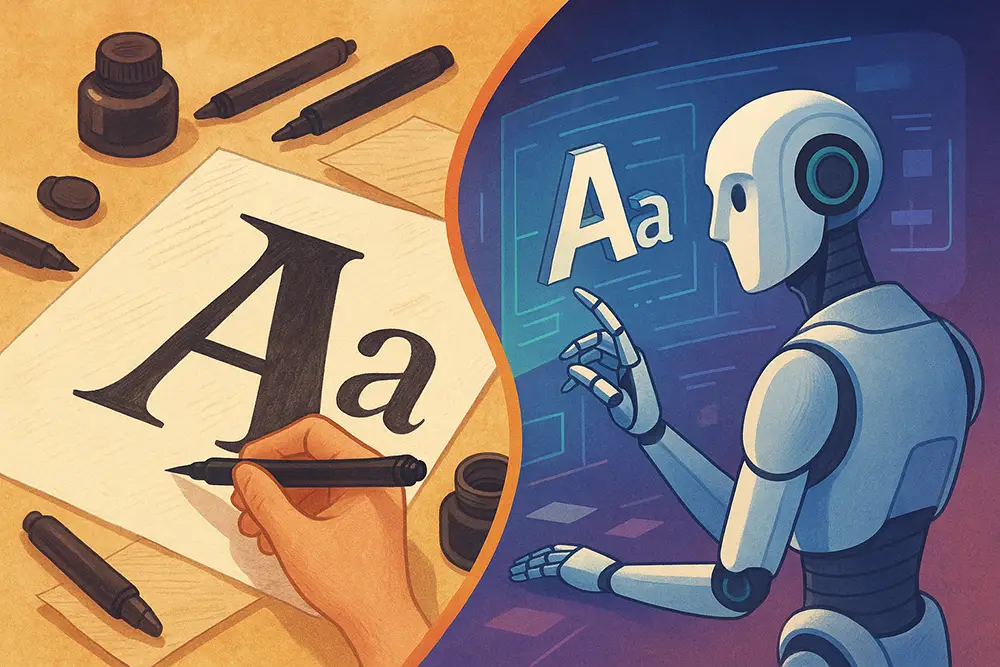
Font design, once ruled by pen strokes and Bézier curves, now faces a powerful collaborator—and competitor: Artificial Intelligence. In 2025, we’re seeing a creative revolution where algorithms generate, optimize, and even judge typography.
But is this a creative blessing, or a shortcut that kills originality?
Let’s explore how AI is transforming the world of font design, what it means for creatives, and how you can stay ahead—without losing your human touch.
AI tools like Fontjoy, Glyphr Studio AI, and even OpenAI’s DALL·E are changing the typography landscape. They can generate font previews, suggest pairings, and even construct full typefaces from scratch—based on prompts, sketches, or scanned references.
These tools aren’t just helping big agencies. Solo designers, freelancers, and even hobbyists now use AI to:
According to Adobe Firefly, generative tools cut type design prototyping time by over 60%.
Want a techno futuristic font in seconds? Just prompt it. AI assists with variations, spacing suggestions, and glyph extensions—all while you stay in creative control.
Recommended Font:
🔥 Byte Sharp – A sleek techno font that fits perfectly in AI-driven interfaces or sci-fi branding.
AI tools can scan millions of design trends and recommend styles based on market relevance. Ideal for branding, advertising, and social media content that needs visual performance.
AI helps optimize contrast, readability, and even cultural sensitivity in letterforms—making fonts inclusive and globally adaptable.
While automation has benefits, we can’t ignore the risks. Many designers worry that overreliance on AI can lead to:
AI learns from what’s already out there. That means your designs might look… like everyone else’s.
Alternative Font Highlight:
🎯 Bombardies – A chaotic yet calculated brush font that breaks away from machine-like precision.
If an AI studies thousands of fonts to generate one—who owns the result? You? The AI? Or the original creators?
Legal experts are still debating this, and designers must tread carefully, especially in commercial use.
Kerning by feel. Balancing visual weight. Hand-drawing quirky alternates. These are skills AI can’t replicate—but designers might forget if they don’t keep practicing.
The smartest creatives are not avoiding AI—they’re using it as a creative partner, not a crutch.
Here’s how to futureproof your design process:
Let AI help with layout tests, visual brainstorming, and quick prototypes. Then, refine it manually to give it your voice.
AI fonts can look clean—but lack emotion. Fonts with backstories and unique characters will always feel more alive.
Featured Font:
💡 Hello Arsenio – Quirky and spontaneous, made for personal brands or playful editorial.
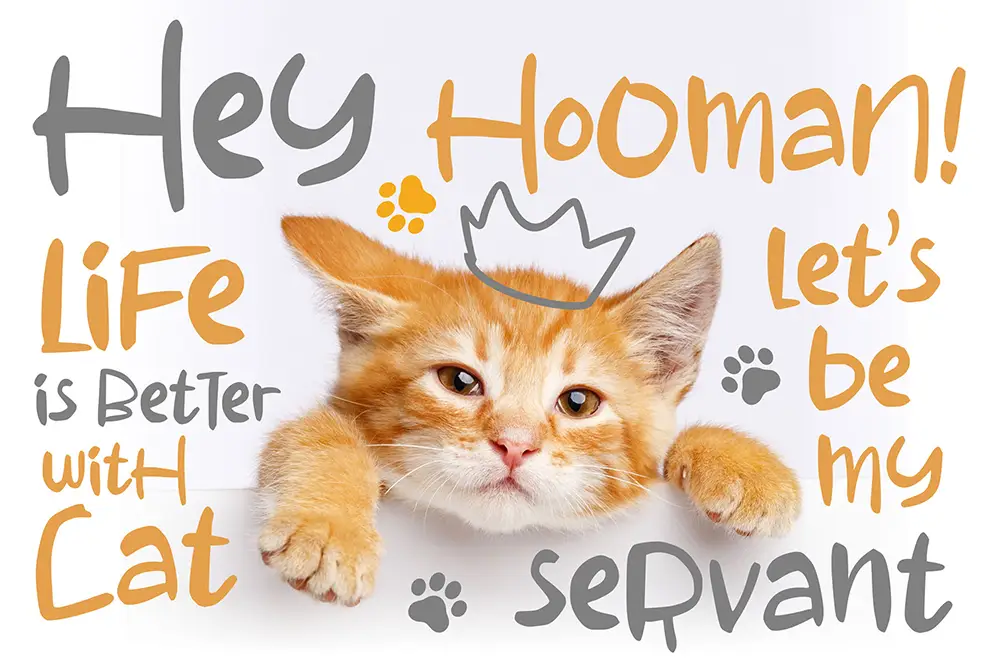
At Figuree Studio, we embrace tech—but we still believe in the power of ink-stained fingers and brush pen strokes.
Many of our best-selling fonts start with hand sketches using brush pens, flat-tip markers, or even DIY ink mixtures made with walnut extract and calligraphy dye. Some of our experiments include using handmade bamboo nibs and unconventional paper textures to add surprise elements to our glyphs.
The raw ideas are later digitized and cleaned up manually—not through full automation, but through a process that respects each curve’s personality.
This handcrafted energy is what sets fonts like Grock Marker or Kidos Marker apart in an AI-saturated world.
| Tool | Use Case | AI-Powered |
|---|---|---|
| Fontjoy | Font pairing suggestions | ✅ |
| Glyphr Studio | Vector font editing | ✅ |
| MidJourney / DALL·E | Experimental letter visuals | ✅ |
| Figuree Studio Fonts | Handcrafted fonts with story | ❌ (human only!) |
The truth is: AI isn’t the enemy. The real threat is creative laziness.
Designers who stay curious, refine their craft, and adopt smart tools will always thrive—even in an AI-saturated world.
So don’t just “use AI fonts.” Design with intention. Curate fonts with emotion. And always bring the one thing AI will never replicate: your creative soul.